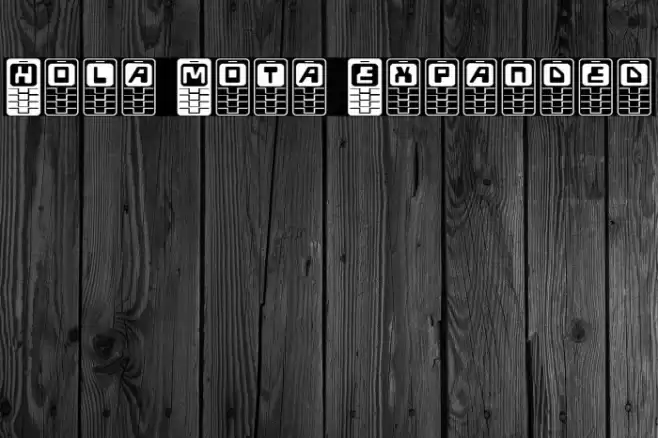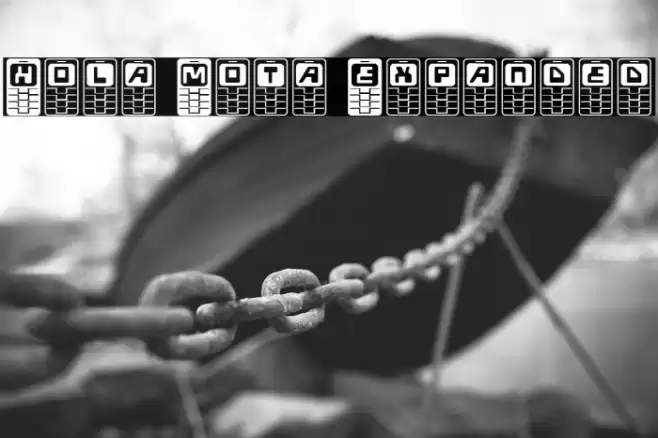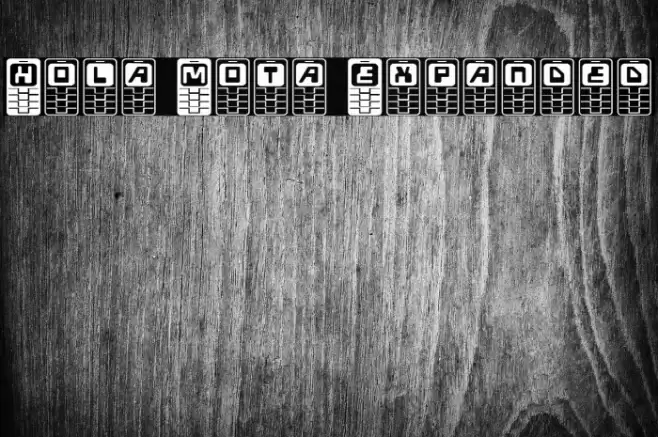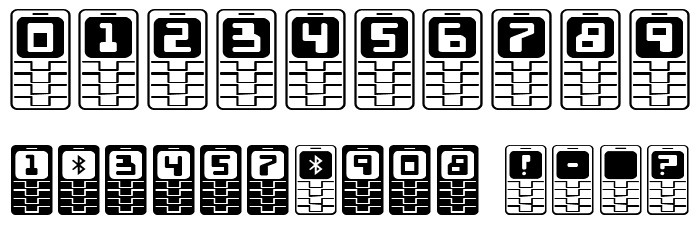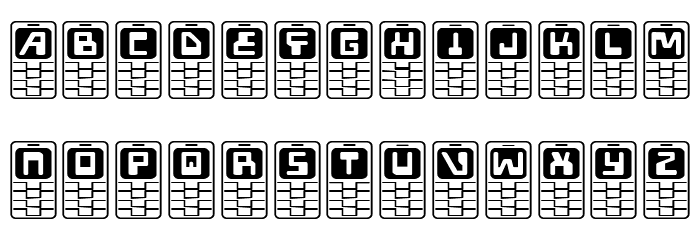
Hola Mota Expanded Font
Hola Mota Expanded Description
This font features a bold, geometric style with a distinct digital and futuristic aesthetic. Each character is enclosed within a rectangular frame, reminiscent of old-school mobile phone keypads. The letters and numbers are blocky and robust, with a uniform thickness that gives them a strong presence. The design is highly stylized, with a playful yet structured appearance, making it suitable for projects that require a modern and tech-inspired look. The characters are evenly spaced, ensuring readability while maintaining a compact form. This font is ideal for creative projects that aim to capture a sense of nostalgia and innovation simultaneously.
A bold, geometric font with a digital, futuristic aesthetic, reminiscent of mobile phone keypads from Uncategorized fonts.
- Proposed Projects: Perfect for tech-themed posters, retro digital art, video game graphics, and branding for tech startups.